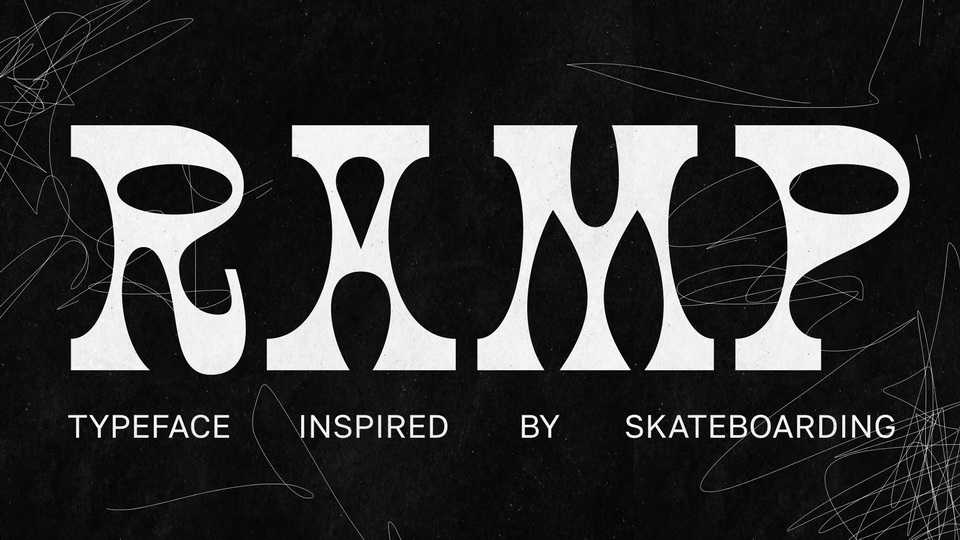
Download RAMP font, a display typeface inspired by street skateboarding culture. At the heart of each letter is the silhouette of a ramp – a springboard that is used by riders to perform tricks.
Designer: Ksenia Bakushkina